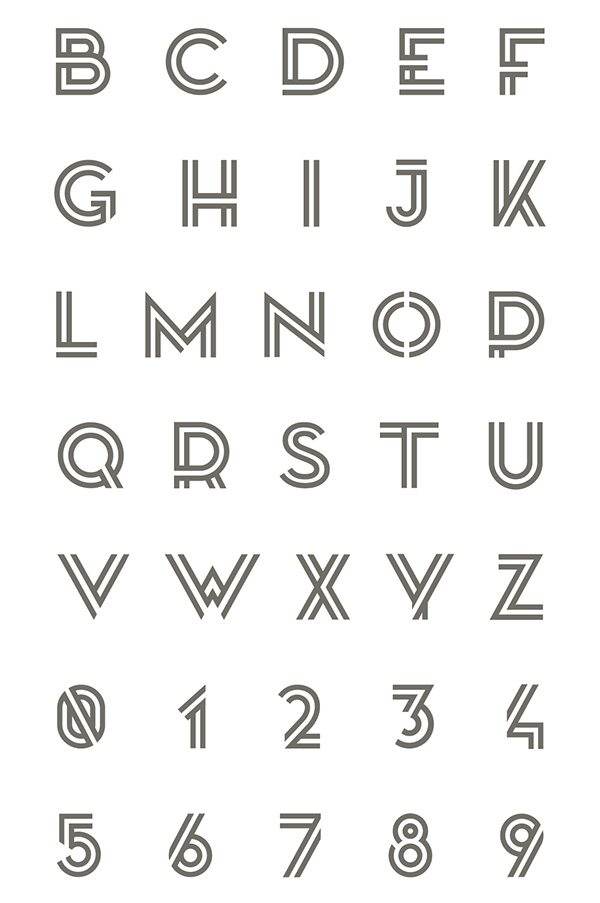
Free Font Of The Day #132 – Kanji Font
Kanji Font
The Font is the adopted logographic Chinese characters that are used in the modern Japanese writing system. Designed by Pedro Azedo.